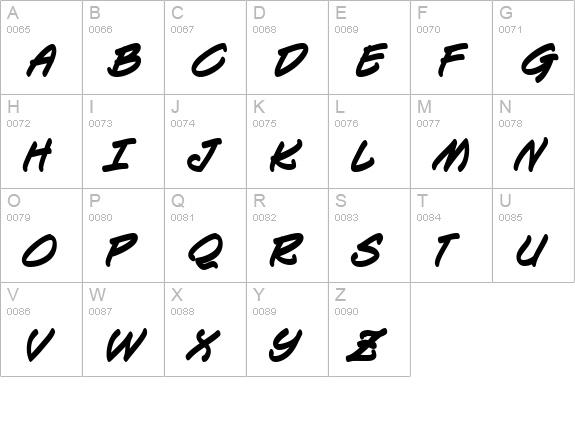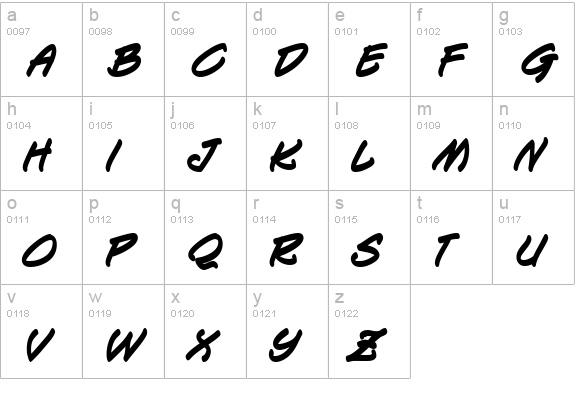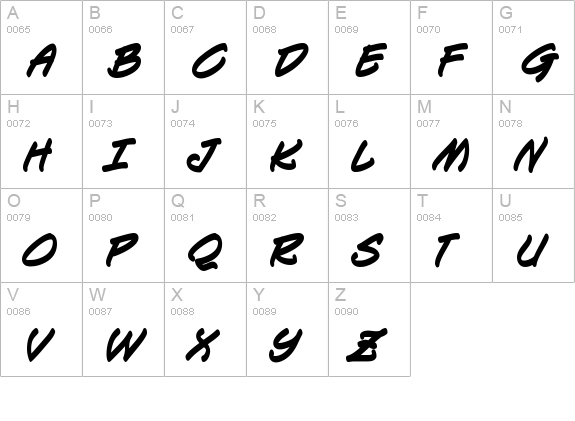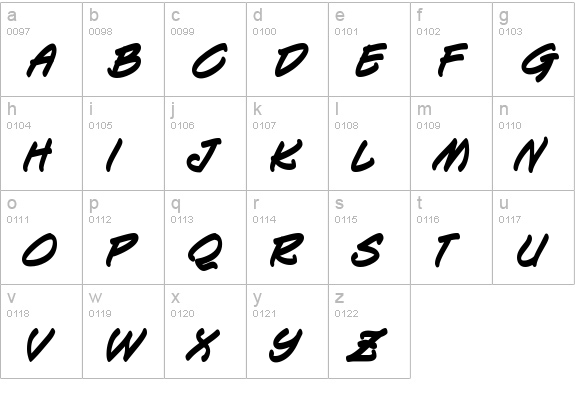
Keelhauled BB Bold Font Details
Keelhauled BB Bold is a strong, high-contrast variant in the Keelhauled typeface family \xE2\x80\x94 well suited to headlines, attention-grabbing titles, and strong calls-to-action.
Keelhauled BB Bold is a stunning and bold font that exudes strength and power. With its robust and commanding presence, this font is perfect for making a statement and grabbing attention. Its thick and heavy strokes give it a distinct and impactful look, making it ideal for headlines, titles, logos, and other design projects that require a strong visual impact. The unique and intricate details of Keelhauled BB Bold make it stand out from the crowd. Each letter has been carefully crafted with precision and care, resulting in a font that is both visually striking and highly legible. Its clean and crisp lines ensure readability even at smaller sizes, making it versatile for various design purposes. But what sets Keelhauled BB Bold apart is that it is not only an extraordinary font, but it is also free! Yes, you read that right. This impressive font is freely available to download at FontsMarket.com. Now you can elevate your designs without breaking the bank, as Keelhauled BB Bold offers a high-quality font option that won't cost you a dime. Whether you are a professional designer, a student, or someone simply looking to enhance their creative projects, Keelhauled BB Bold is the perfect choice. Its bold and commanding presence, combined with its free availability, makes it a must-have font for anyone in search of a powerful and impactful typographic solution. So why wait? Head over to FontsMarket.com and download Keelhauled BB Bold for free today. Unleash the power of this remarkable font and take your designs to new heights. Don't miss out on this incredible opportunity to add a touch of boldness and professionalism to your projects, all without spending a single penny.